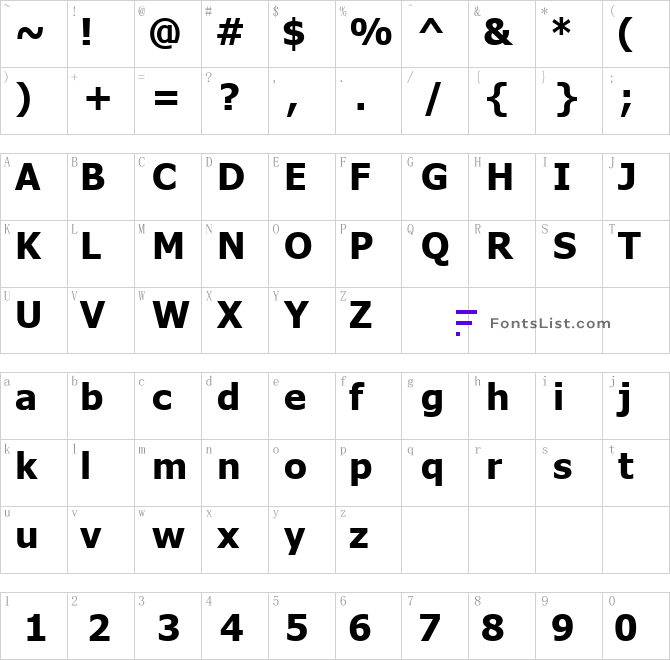
- Font Name:Alpsoft Tuz Tom
- Full Name:Alpsoft Tuz Tom Bold
Alpsoft-Tuz-Tom-Bold.ttf is a very beautiful artistic font, Alpsoft-Tuz-Tom-Bold.ttf is widely used in the design and printing of various books and pictures,Alpsoft-Tuz-Tom-Bold.ttf has a strong visual impact,Alpsoft-Tuz-Tom-Bold.ttf is a commonly used font in newspapers, magazines and books, and is used in posters, e-commerce Poster design, store design, logo design, font design and other fields.Alpsoft-Tuz-Tom-Bold.